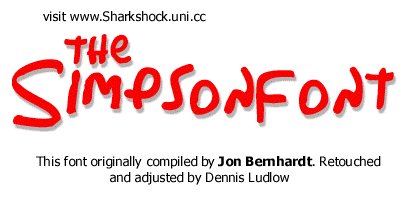
Akbar Plain
Loose marker handwriting in the style of Matt Groening
Looking for the Simpsons font? We have got you covered. Akbar Plain (also searched as "Akbar font") is styled after Matt Groening's handwriting used in The Simpsons TV show.
What it looks like
Akbar Plain is a loose, rounded marker handwriting font with thick, slightly wobbly strokes and uneven letter heights. The capital M has big looping peaks, the G and Q have a casual hand-drawn curl, and the I has little serifs on top and bottom. Uppercase and lowercase are close in shape, and it includes numbers, @, #, $, %, & and a small star, so it handles real sentences and not just titles.
Ideas for using it
- Simpsons-themed party invitations, cake toppers and birthday banners
- Fan art, memes and Springfield style signs
- Cartoon-style captions, comic dialogue and kids' classroom posters
- Handwritten notes and labels that need a friendly, goofy tone